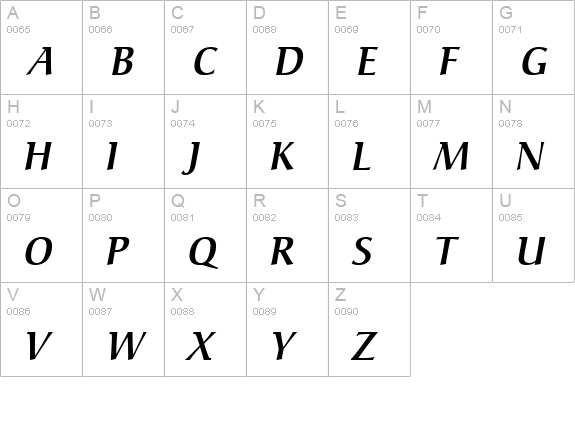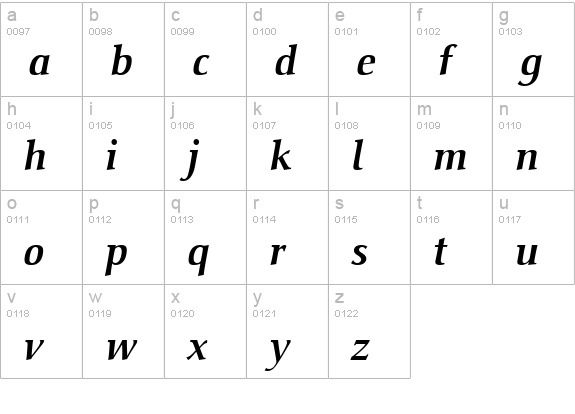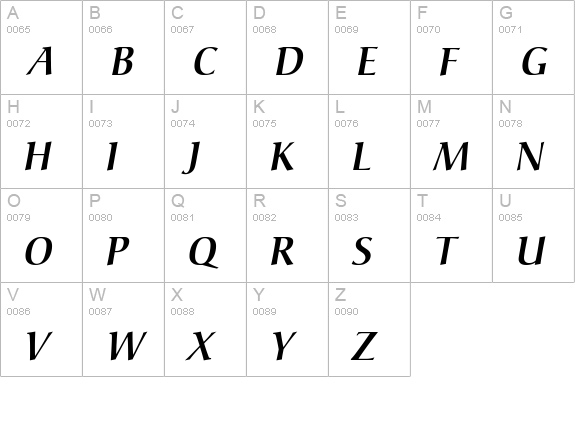
Christiana Medium Italic Font Details
Christiana Medium Italic is a balanced, medium-weight, italic variant in the Christiana typeface family \xE2\x80\x94 well suited to sub-headlines, navigation, and balanced editorial work.
Christiana Medium Italic font is a beautifully crafted typeface that exudes elegance and sophistication. Its sleek and graceful italic style adds a touch of sophistication to any design project. The flowing curves and gentle slant of the letters give this font a sense of movement and dynamism. This versatile font is perfect for a wide range of design applications, from elegant invitations to stylish branding materials. Whether you're working on a wedding invitation, a logo design, or a website layout, Christiana Medium Italic font will add a touch of class and refinement to your project. The best part is that Christiana Medium Italic font is available for free download at FontsMarket.com. This means you can easily access this stunning font and use it in your projects without any cost. Don't miss out on this opportunity to enhance your designs with the timeless beauty of Christiana Medium Italic font.